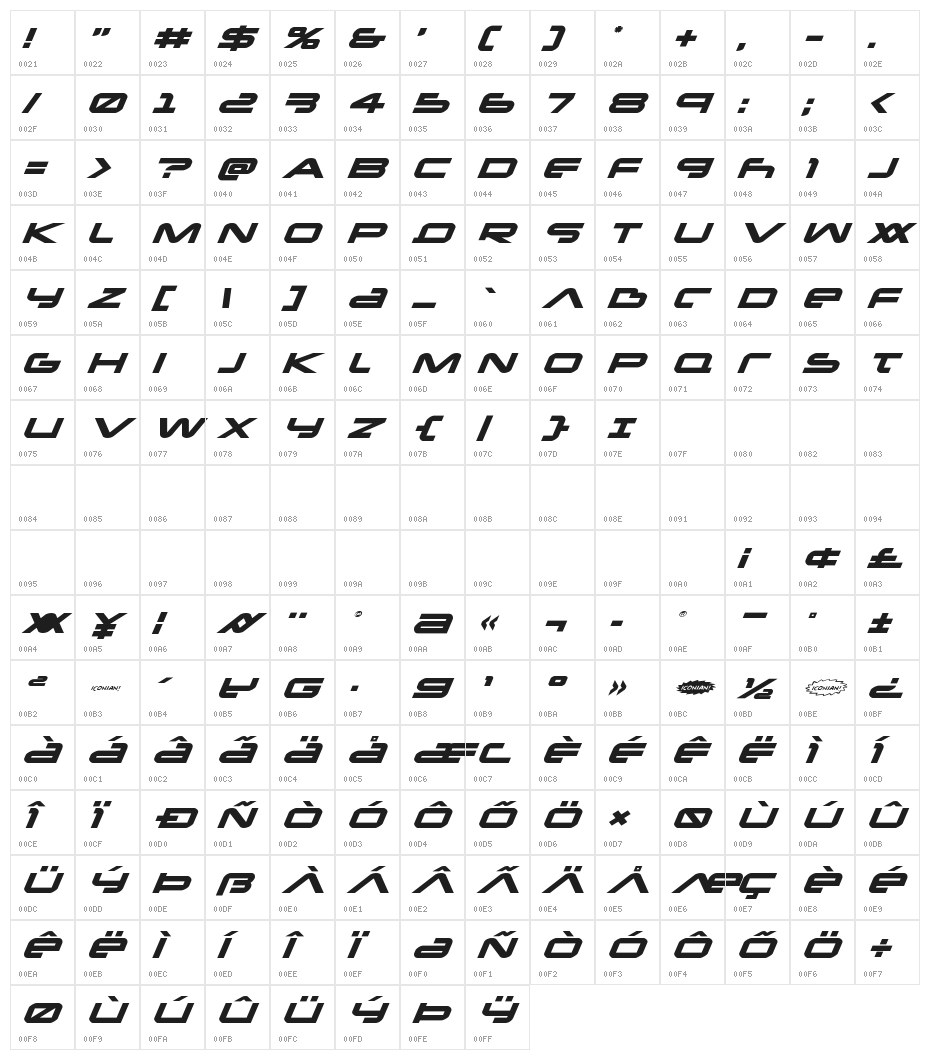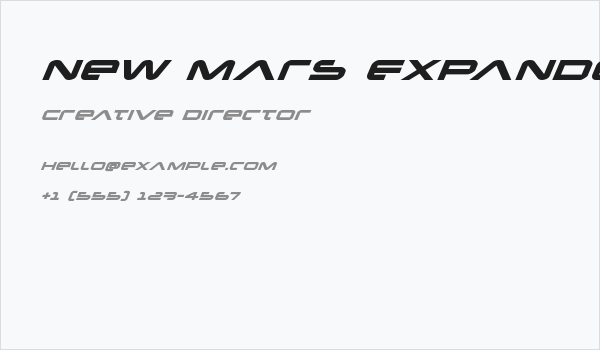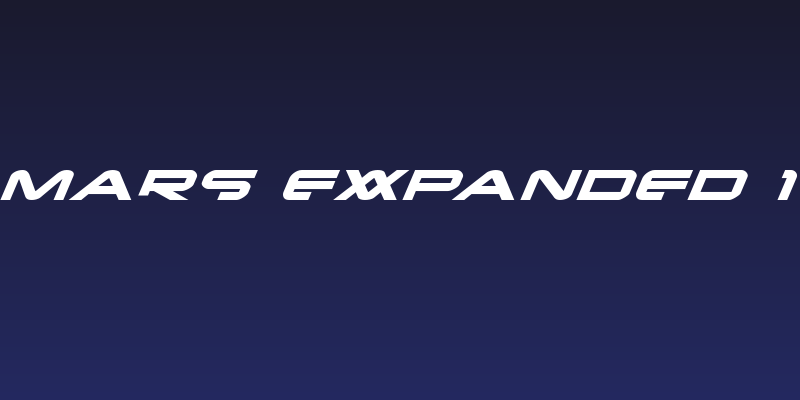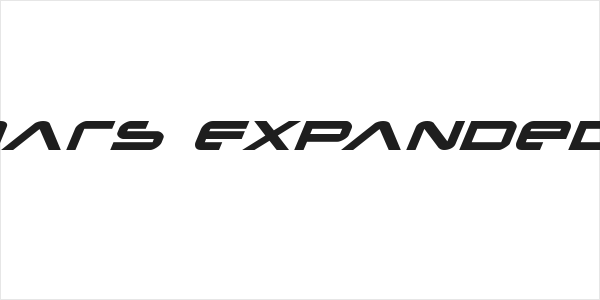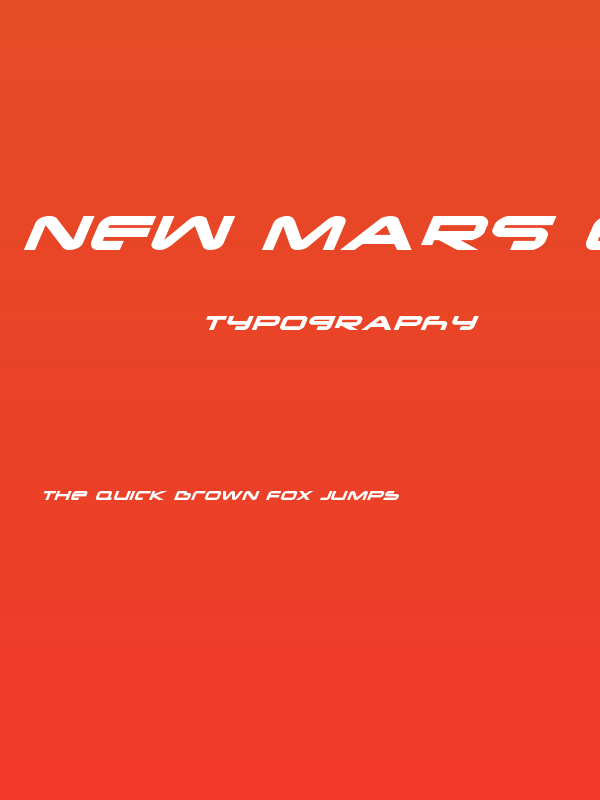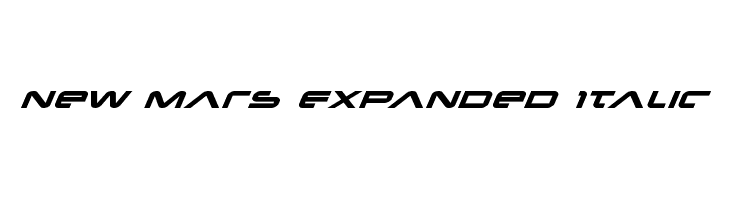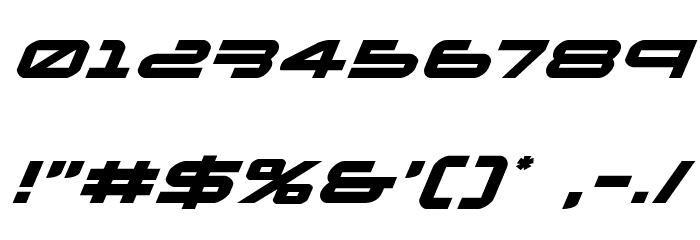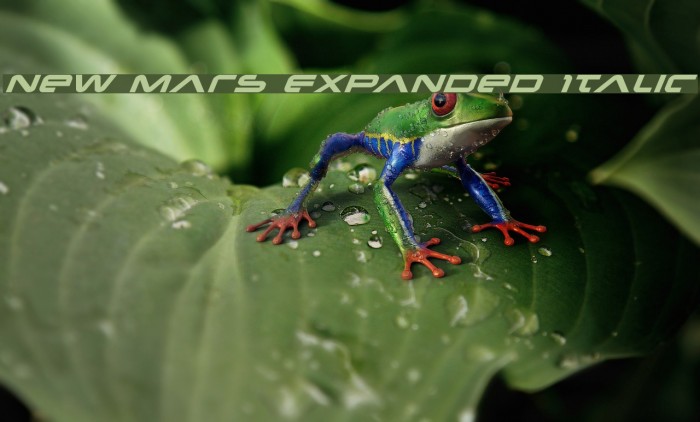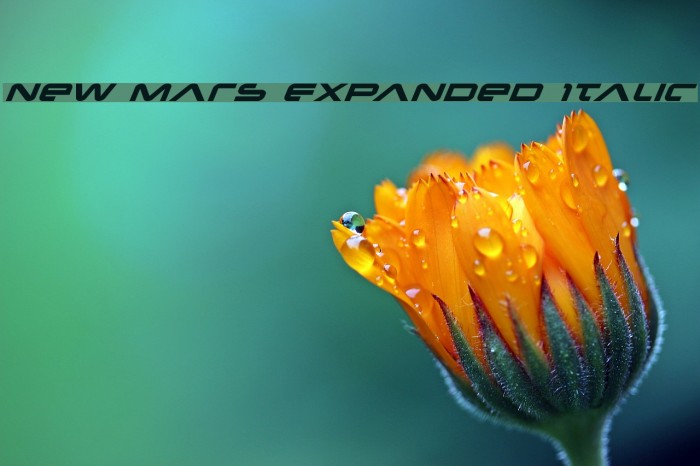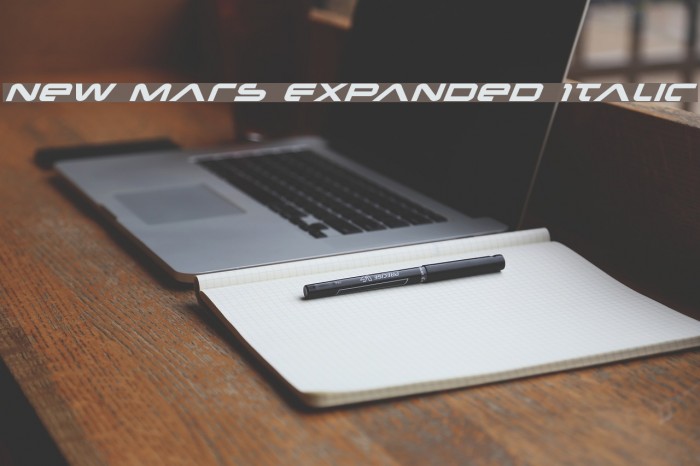
New Mars Expanded Italic Font
This font features a futuristic and dynamic design with an expanded and italicized style. The characters are sleek and angular, giving a sense of motion and modernity. The uppercase and lowercase letters maintain a consistent slant, enhancing the italic effect. The numbers and special characters follow the same stylistic cues, ensuring uniformity across all glyphs. The font's expanded width allows for a bold presence, making it suitable for attention-grabbing headlines or titles. Its unique design elements make it stand out, providing a distinctive look that is both contemporary and versatile.
| Use Case | Headlines, Logos, Titles |
| Proposed Projects | Ideal for sci-fi themed designs, tech branding, video game titles, and modern advertising. |